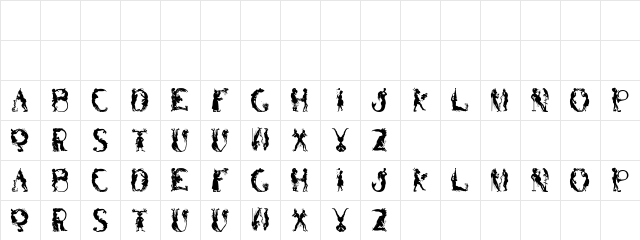
Bizarro Regular
Design Context for Bizarro Typeface
Bizarro is a composed and adaptable typeface that performs quietly and consistently across a wide range of design contexts.